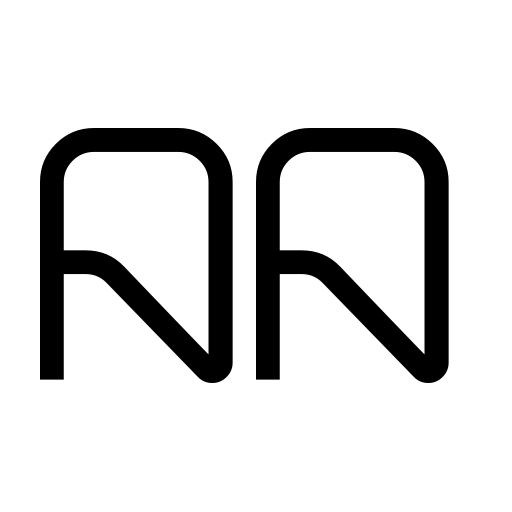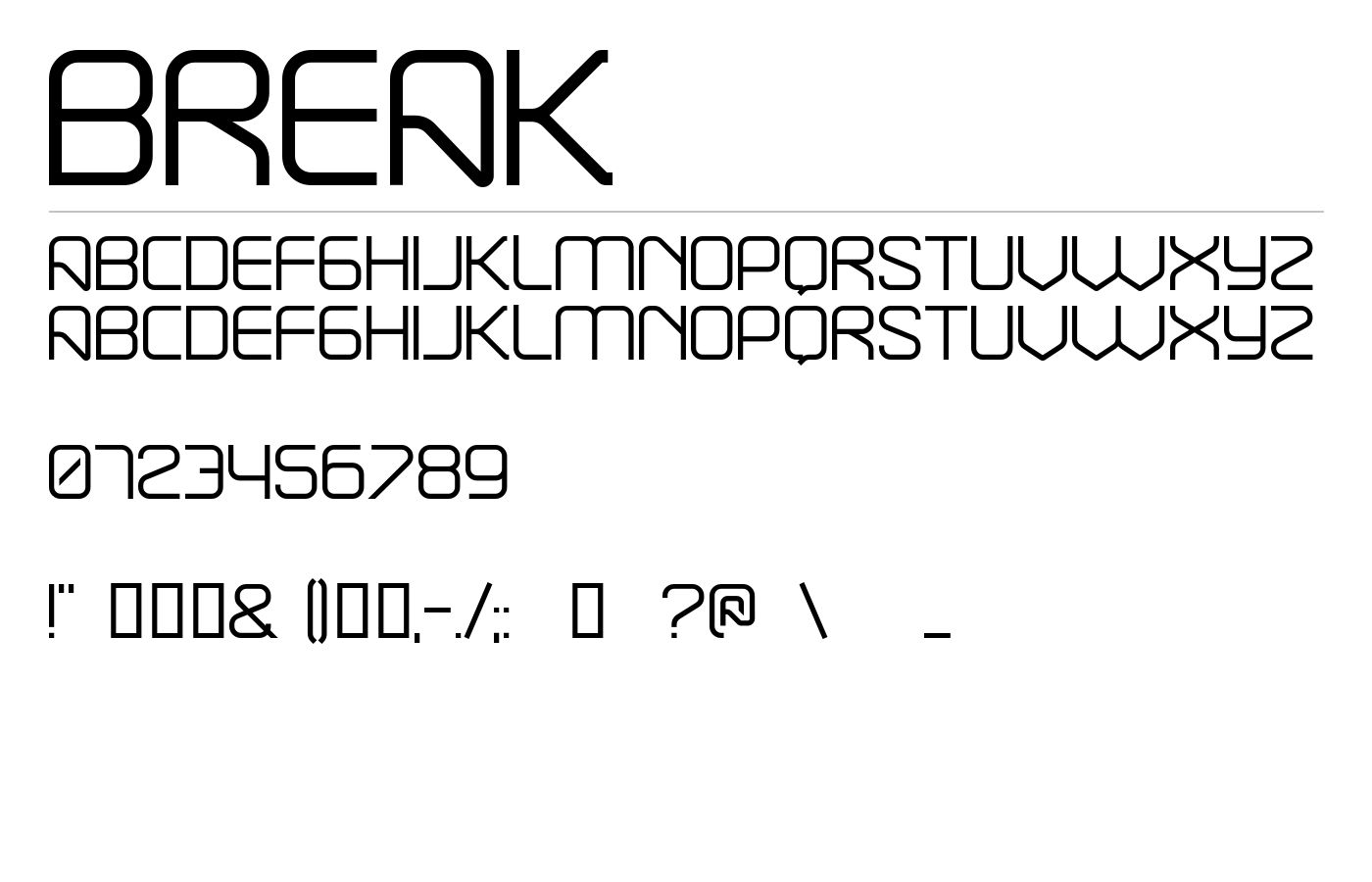
Break Font is a sleek, modern sans serif with a futuristic vibe, characterized by its thin, geometric lines and uniform stroke weight. Its narrow width and unique angular letterforms, including distinctive shapes like the pointed K and stylized Q, give it a technical and contemporary feel, making it ideal for tech branding, digital interfaces, and modern editorial design. This font works best in headlines and logos where a clean, high-tech aesthetic is desired.